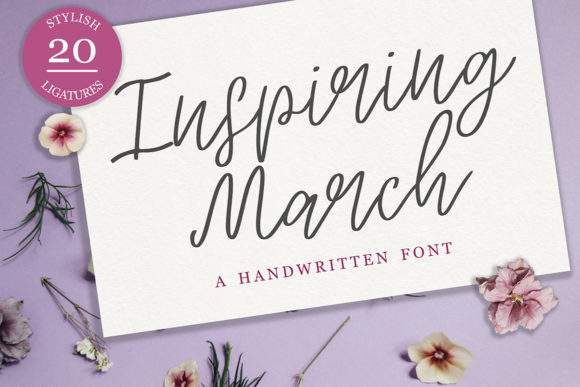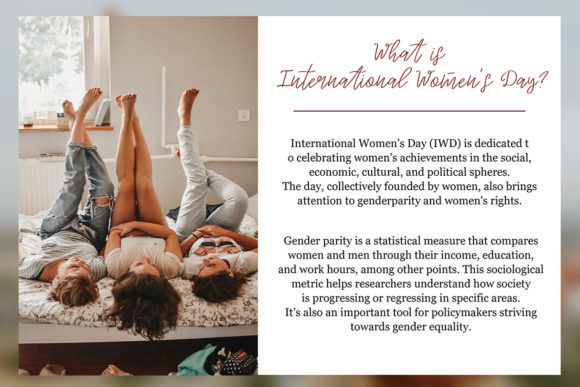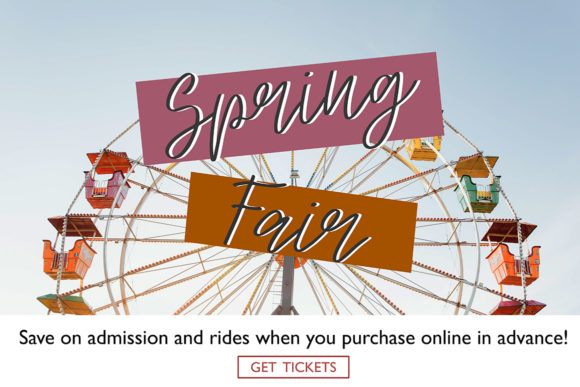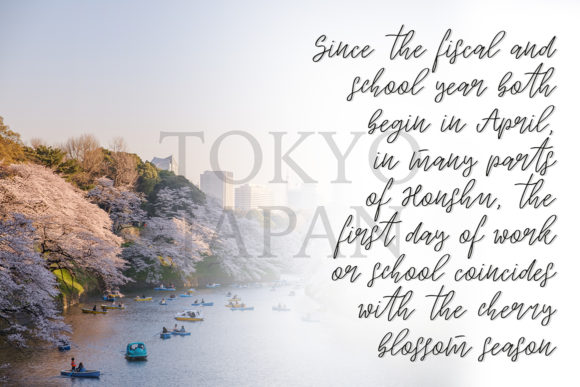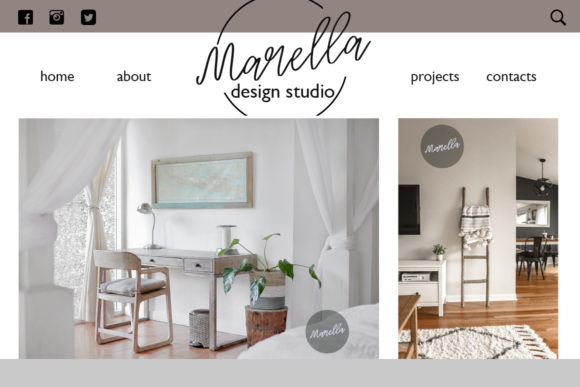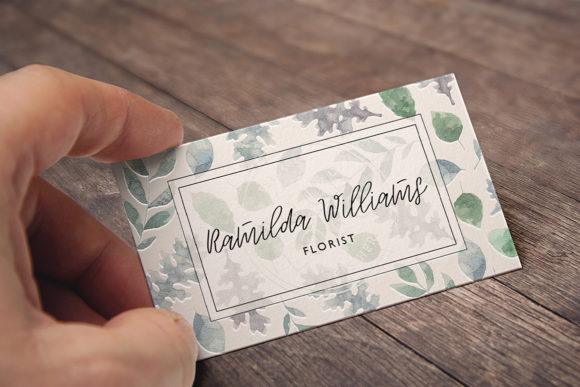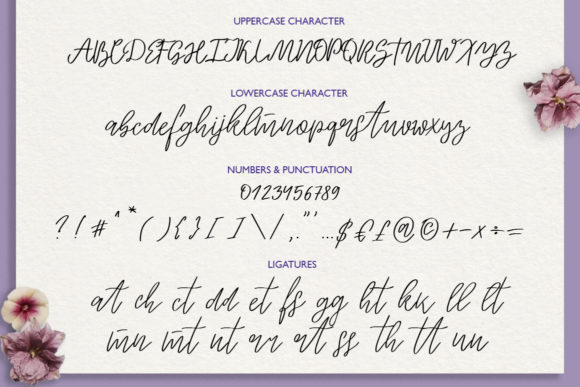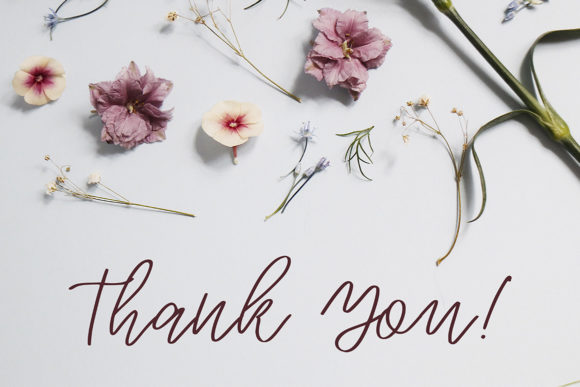
Inspiring March Font
About Inspiring March Font
Inspiring March is inspired by classic typography and brings its own unique style to any design project. This fantastic signature script font is best suited for headlines of all sizes, as well as for blocks of text that have both maximum and minimum variations. Whether it’s for web, print, moving images or anything else – Inspiring March will look spectacular.